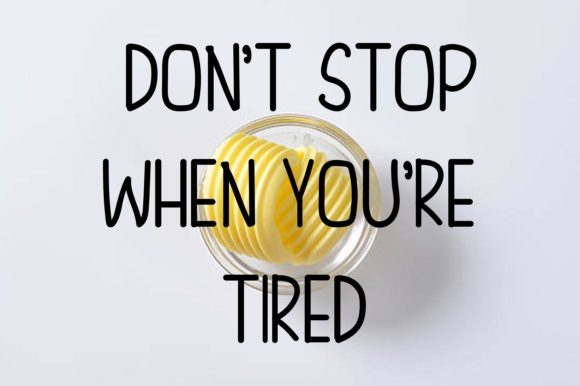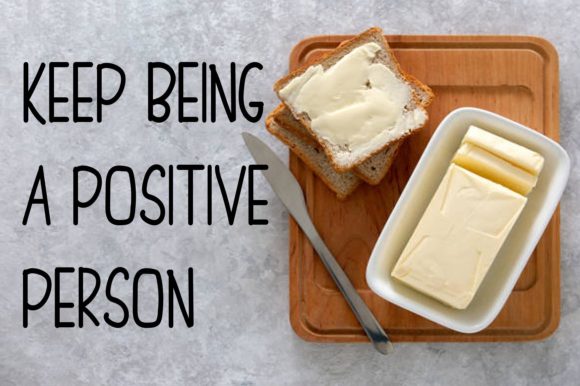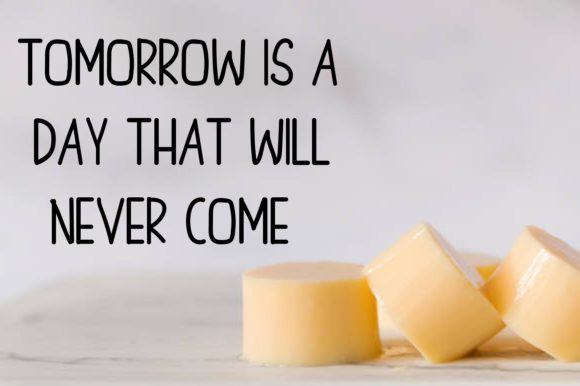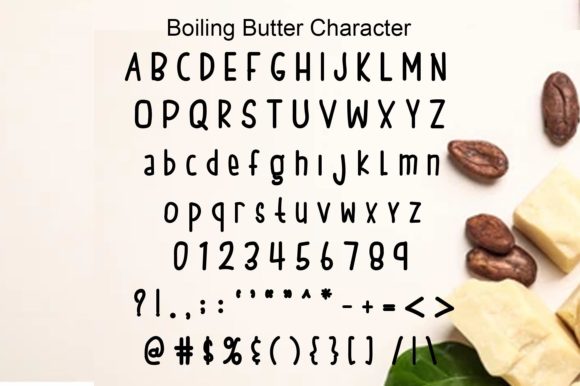
About Boiling Butter Font
Boiling Butter is a cute and casual handwritten font that will look outstanding in any context. Whether you’re looking for fonts for Instagram or calligraphy scripts for DIY projects, this font will turn any creative idea into a true piece of art!
Boiling Butter can be used for logos, headings, t-shirts, letterhead, signage, labels, news, posters, badges, and so much more.